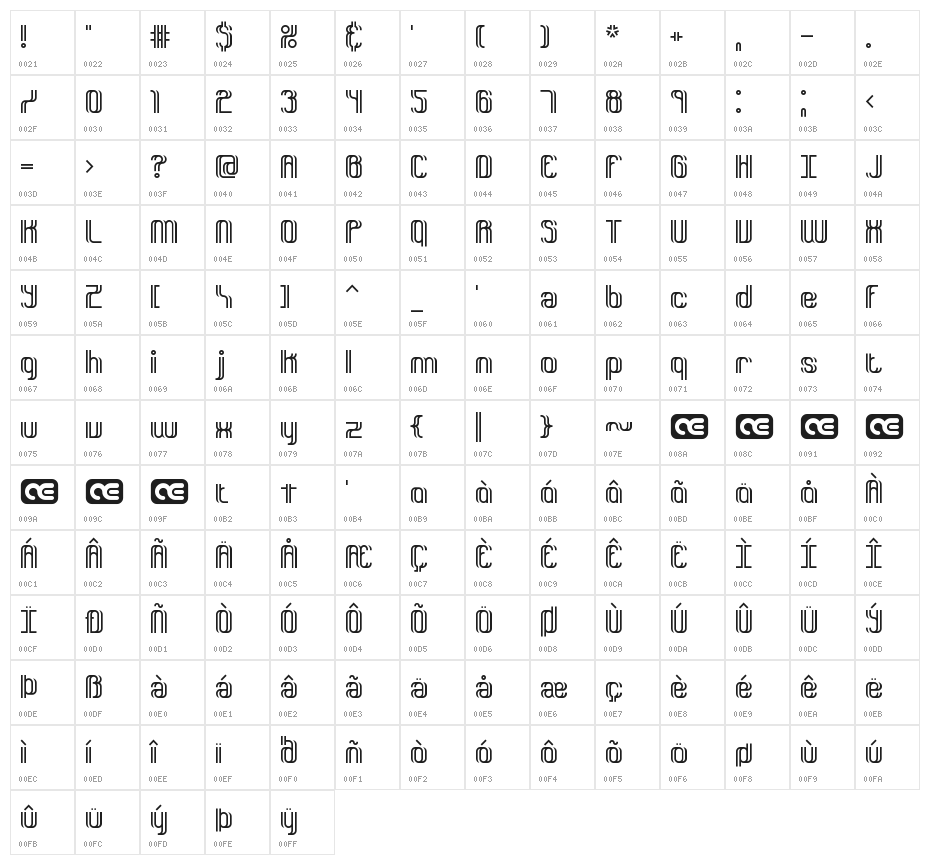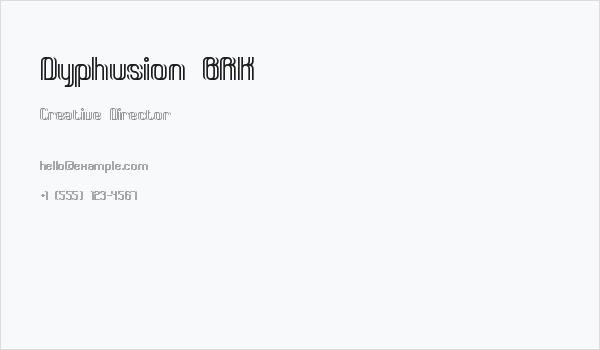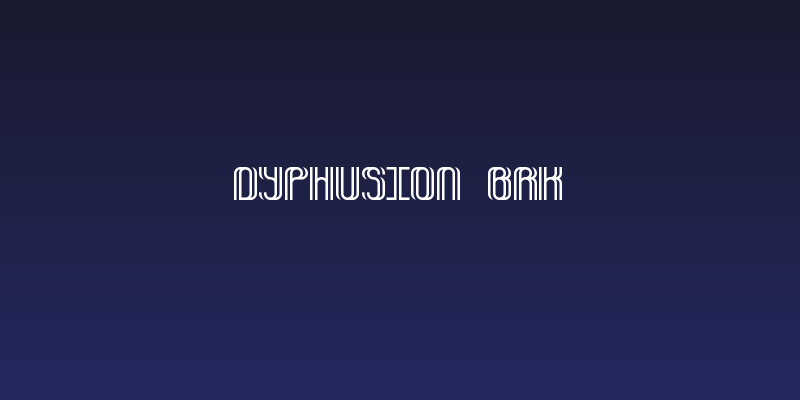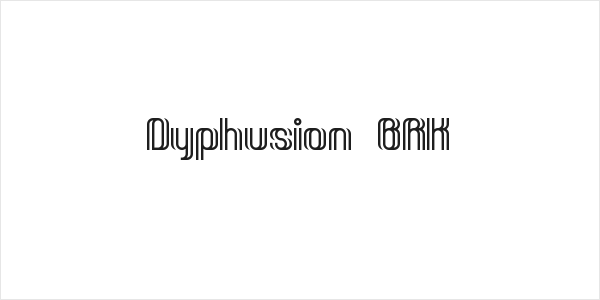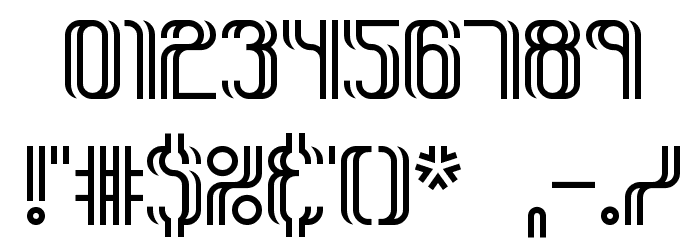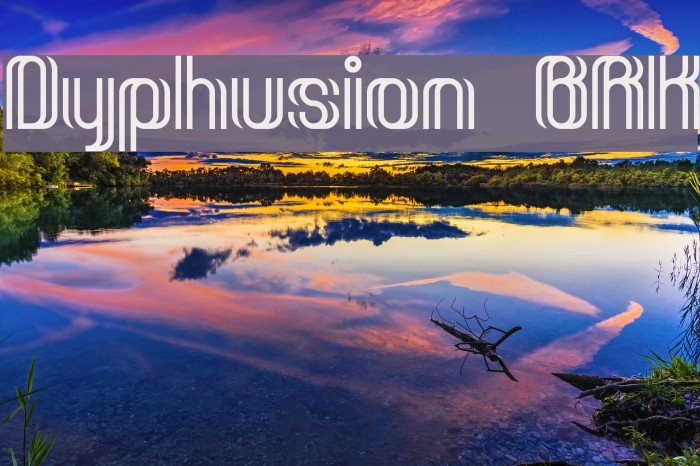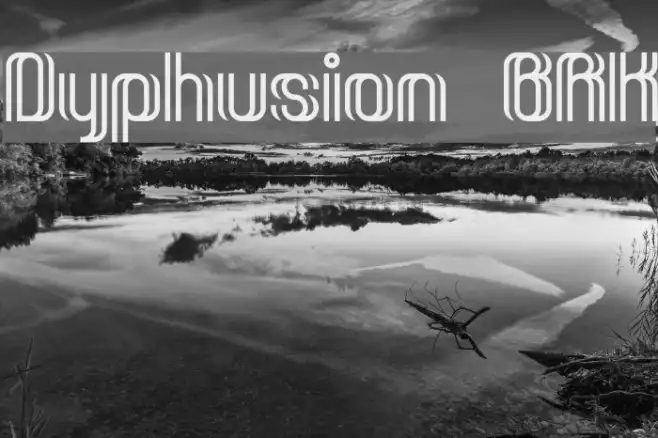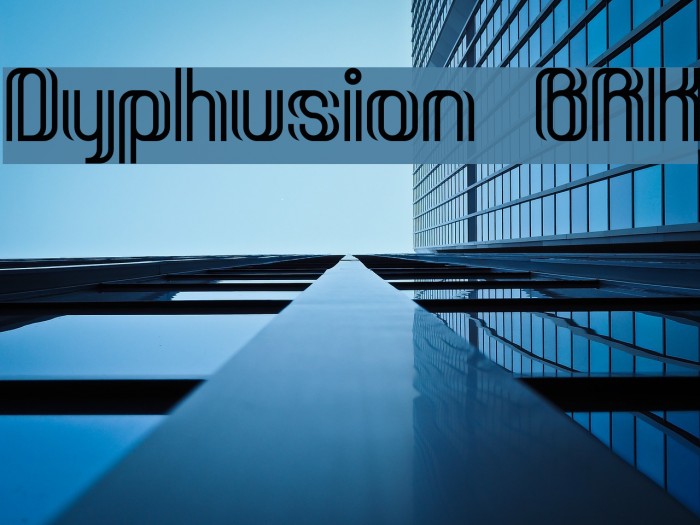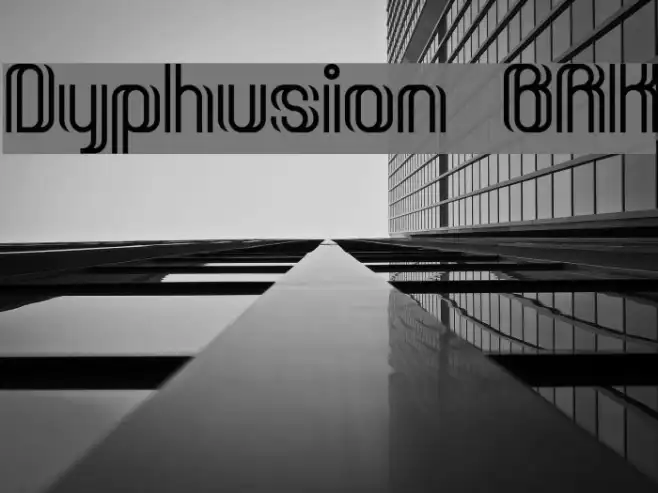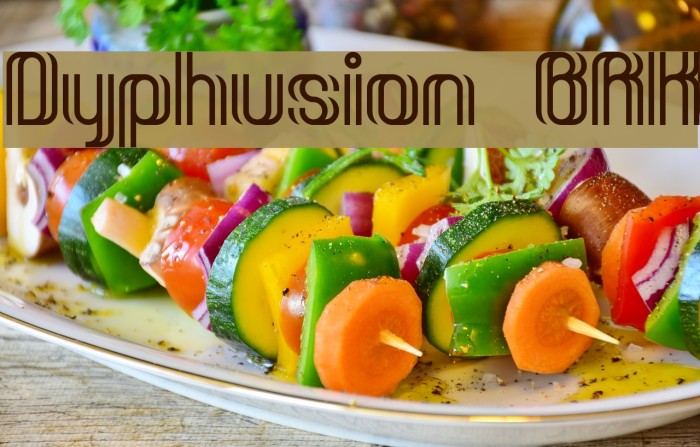
Dyphusion BRK Font
Dyphusion BRK Description
This font features a unique and futuristic design with a geometric structure. Each character is composed of bold, parallel lines that create a sense of movement and modernity. The uppercase and lowercase letters maintain a consistent style, with rounded edges and a uniform height that enhances readability. Numbers and special characters follow the same design principles, ensuring a cohesive look across all text elements. The font's distinctive appearance makes it ideal for projects that require a contemporary and innovative touch.
| Proposed Projects | Ideal for tech branding, sci-fi themed designs, modern posters, and innovative product packaging. |